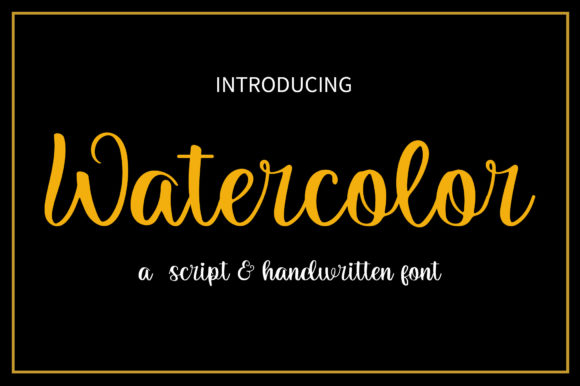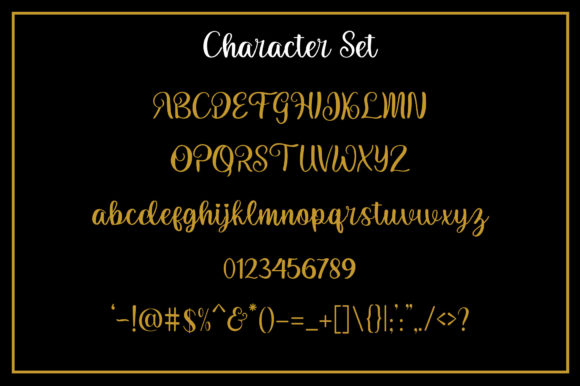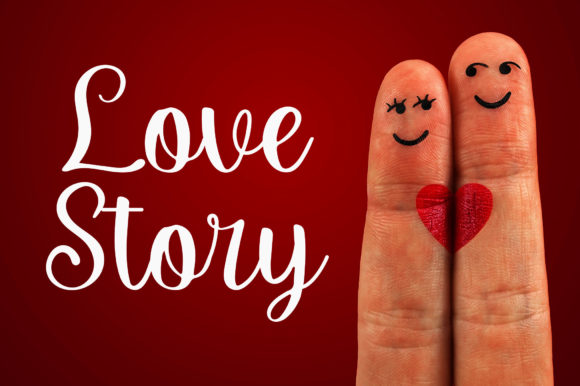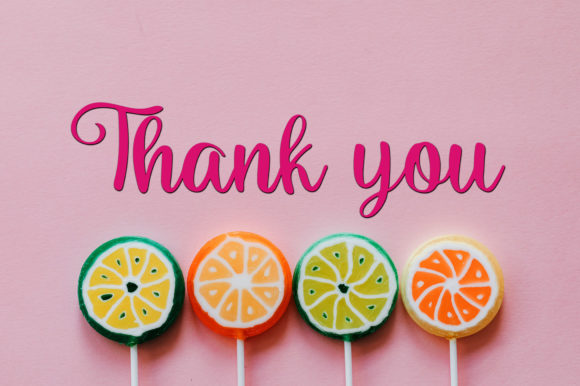
Watercolor Font
About Watercolor Font
Watercolor is a chic and trendy script font that emanates sophistication and elegance. Its stylish alternates and ligatures make this font the perfect match for any project.